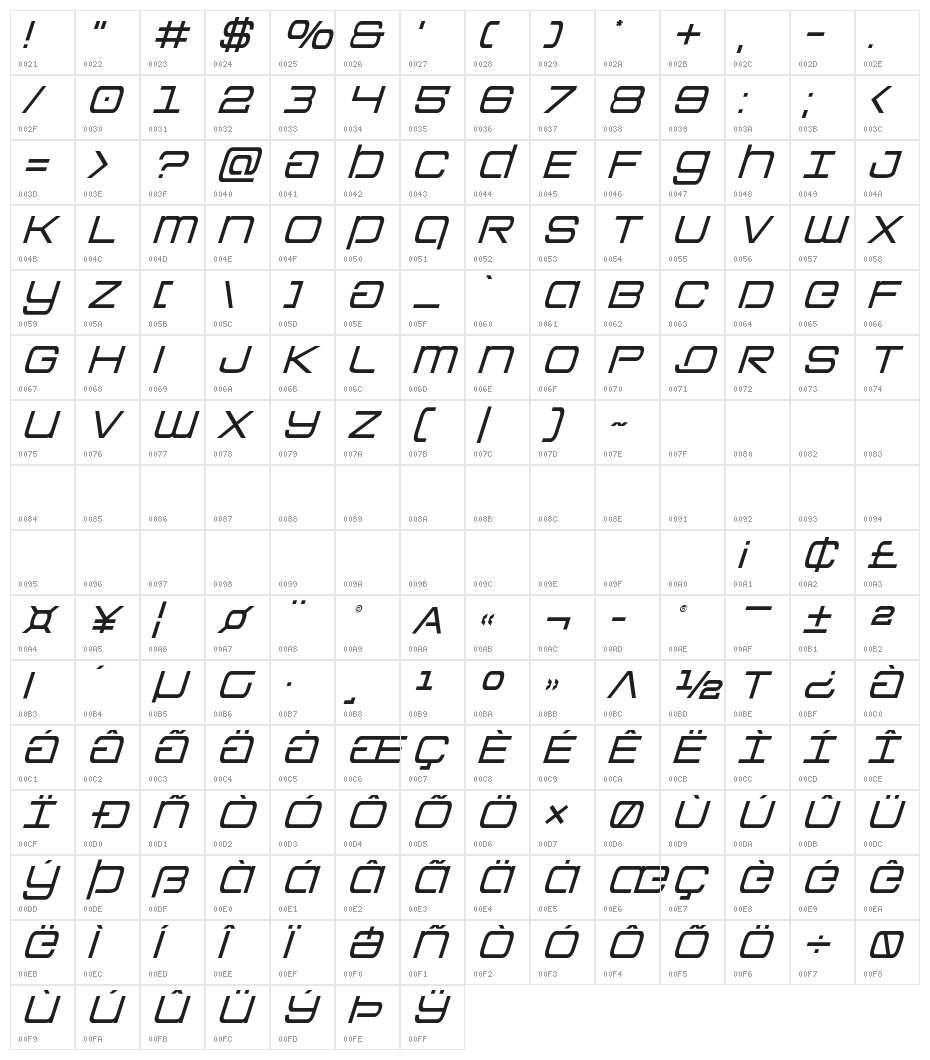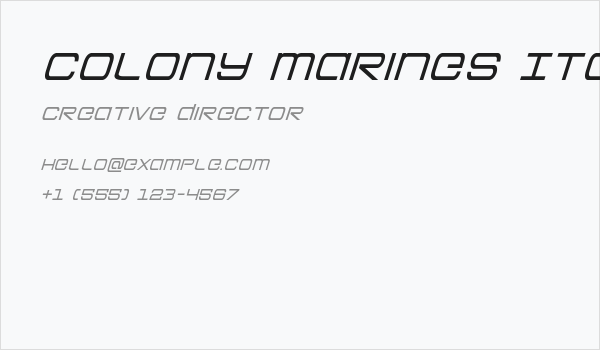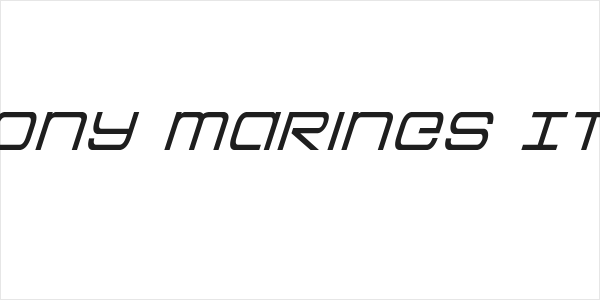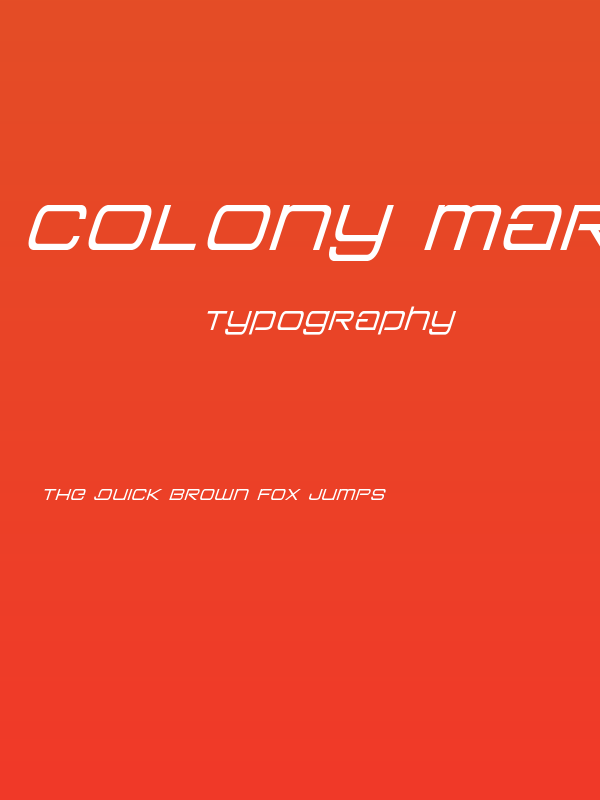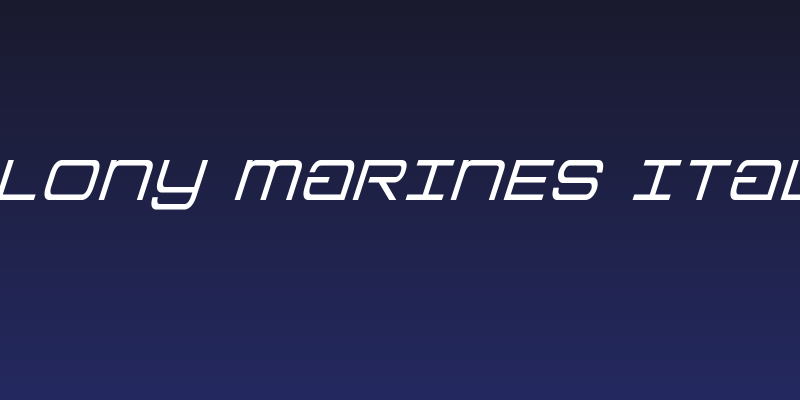
Colony Marines Italic Font
Colony Marines Italic Description
This font features a sleek, modern design with a futuristic appeal. The characters are slightly italicized, giving a sense of motion and dynamism. The strokes are consistent in thickness, providing a uniform appearance across all characters. The design incorporates rounded edges and geometric shapes, creating a harmonious balance between sharpness and softness. The font's clean lines and open spacing make it highly legible, even at smaller sizes. It exudes a sense of technology and innovation, making it suitable for contemporary design projects.
| Proposed Projects | Ideal for technology branding, sci-fi themed projects, modern advertising, and innovative product packaging. |